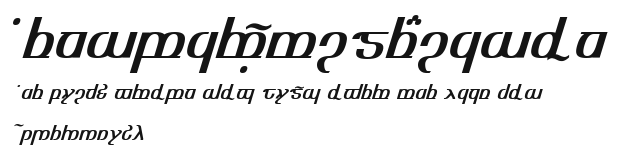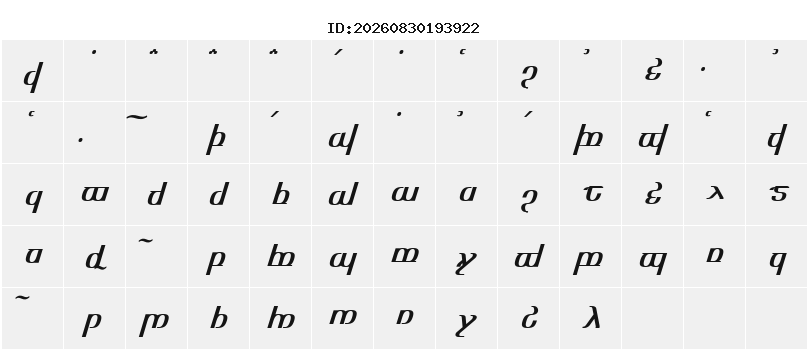
• Font Name: TengwarOptimeDiagon
• Font ID: TengwarOptime
• Full Font Name: TengwarOptimeDiagon
• PostScript Name: TengwarOptimeDiagon
• Character Count: 208
• Designer: Peter Wiegel
• Manufacturer: Peter Wiegel
About TengwarOptimeDiagon.ttf
TengwarOptimeDiagon.ttf is a modern, elegant sans-serif font designed for ultimate readability and visual harmony. Perfect for branding, headlines, web design, and print materials.